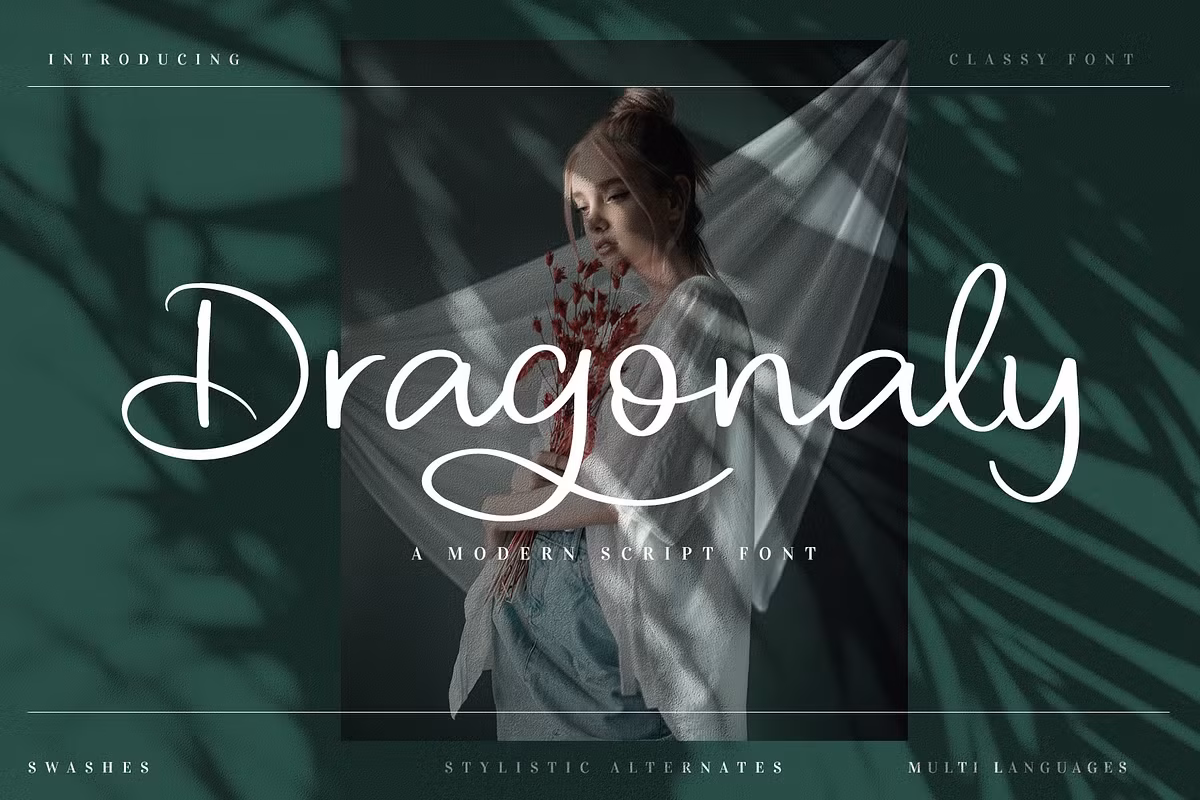
The Dragonaly Script Font Free Download is a beautiful and elegant handwritten script typeface that exudes a sense of sophistication and style. Perfect for creating custom logos, invitations, greeting cards, social media graphics, and other creative projects, this font brings a personal and artistic touch to your designs. Please note, for commercial use, a license must be purchased. You can download it for free for testing purposes.
With its flowing curves and graceful strokes, the Dragonaly Script Font Free Download is ideal for projects that require a delicate, handwritten flair. Whether you're designing for weddings, fashion, branding, or any high-end project, this font will add a refined and classy look to your work.